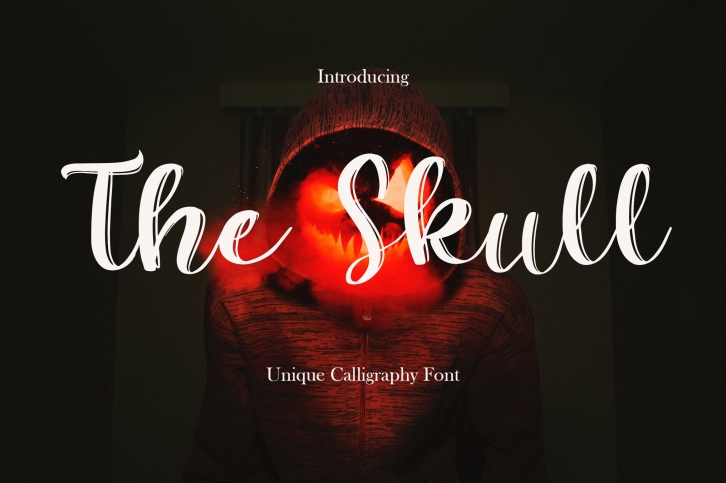
The Skull is a beautifully flowing handwritten font that looks natural and charming. It will be a great font for projects that need a personal note and an authentic look!